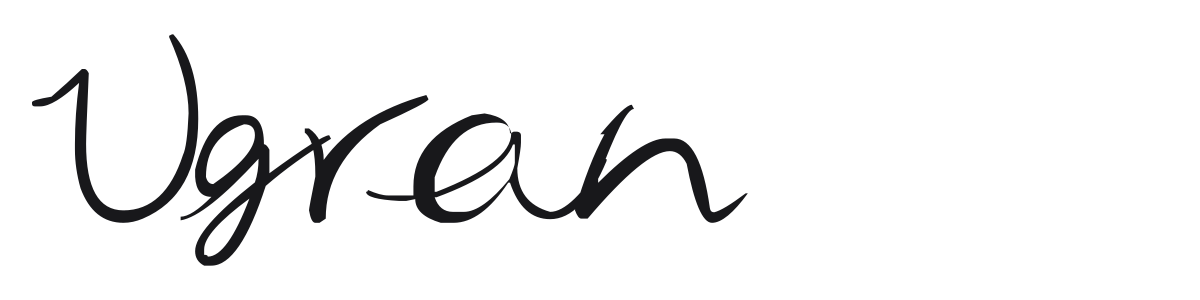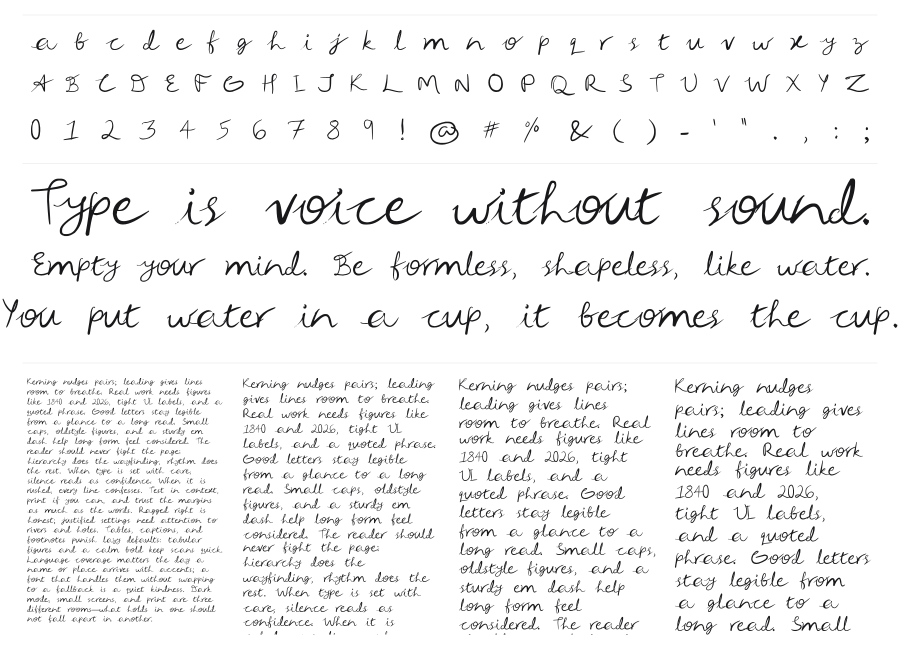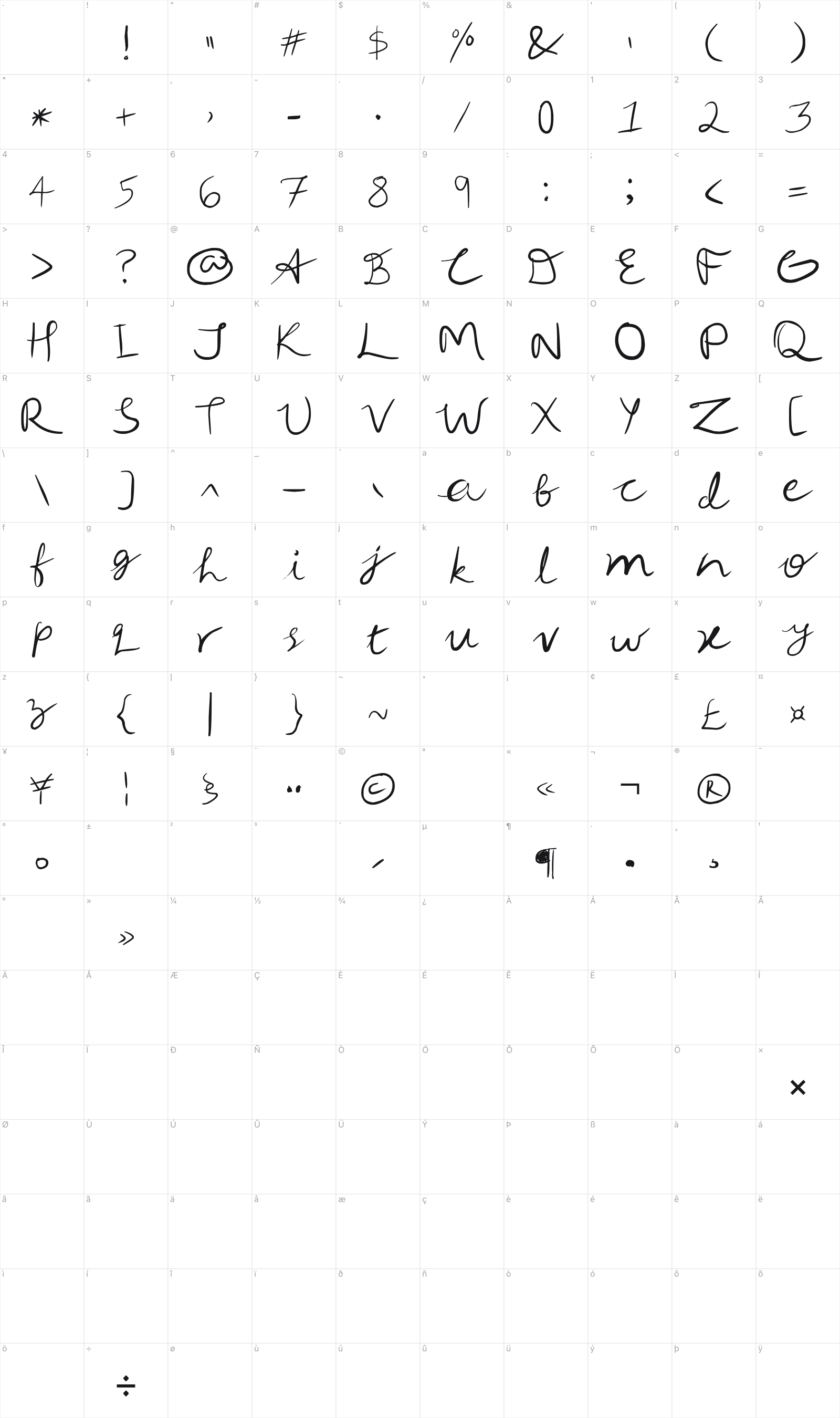
Ugran
Ugran is a thin, casual handwritten face by Ajith Rajan that feels like someone's natural pen signature captured without cleanup. The strokes are light and informal, with the kind of slight inconsistency that makes it read as genuinely personal rather than digitally smoothed. A good fit for signatures, personal branding, invitations, or anywhere you want type that feels intimate and unforced.